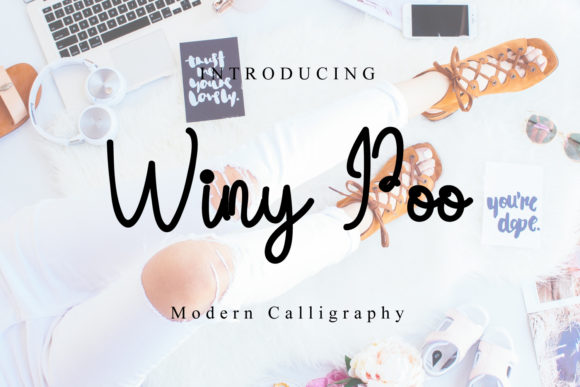
Journey into a whimsical world of words with Winy Poo, the font of enchanting charm and boundless creativity. Inspired by the playful innocence of childhood tales, this script font dances across your screen, evoking a sense of nostalgia and wonder. Its graceful curves and elegant strokes bring a touch of magic to every design, transforming ordinary text into captivating works of art.
With Winy Poo, the boundaries of creativity dissolve, allowing your imagination to soar. This versatile font family gracefully adorns logos, branding, social media posts, invitations, greeting cards, and more. Its unassuming presence lends an air of sophistication to wedding invitations, imbues posters with a touch of whimsy, and adds a dash of playfulness to product packaging.
Dive into the depths of Winy Poo's versatility and discover its myriad applications. This font family is a master of transformation, seamlessly adapting to a diverse range of design aesthetics. From classic and elegant to modern and unconventional, Winy Poo dances effortlessly through different styles, becoming an integral part of your creative vision.
Embrace the beauty of Winy Poo and let its enchanting aura captivate your audience. Its intricate details and harmonious flow create an unforgettable visual experience that leaves a lasting impression. Each letter, lovingly crafted by the hands of a skilled artist, tells a story, inviting your readers to embark on a journey of imagination and discovery.
Winy Poo is more than just a font; it's an invitation to express your creativity, to let your imagination run wild, and to create designs that resonate with your audience on a deeper level. It's a key that unlocks a world of enchanting possibilities, where your words come alive and dance upon the page.
So, whether you're a seasoned designer seeking to elevate your work or a novice just starting your creative journey, Winy Poo is your trusted companion. Let its magic transform your designs, ignite your passion, and create a lasting legacy of beauty and inspiration.